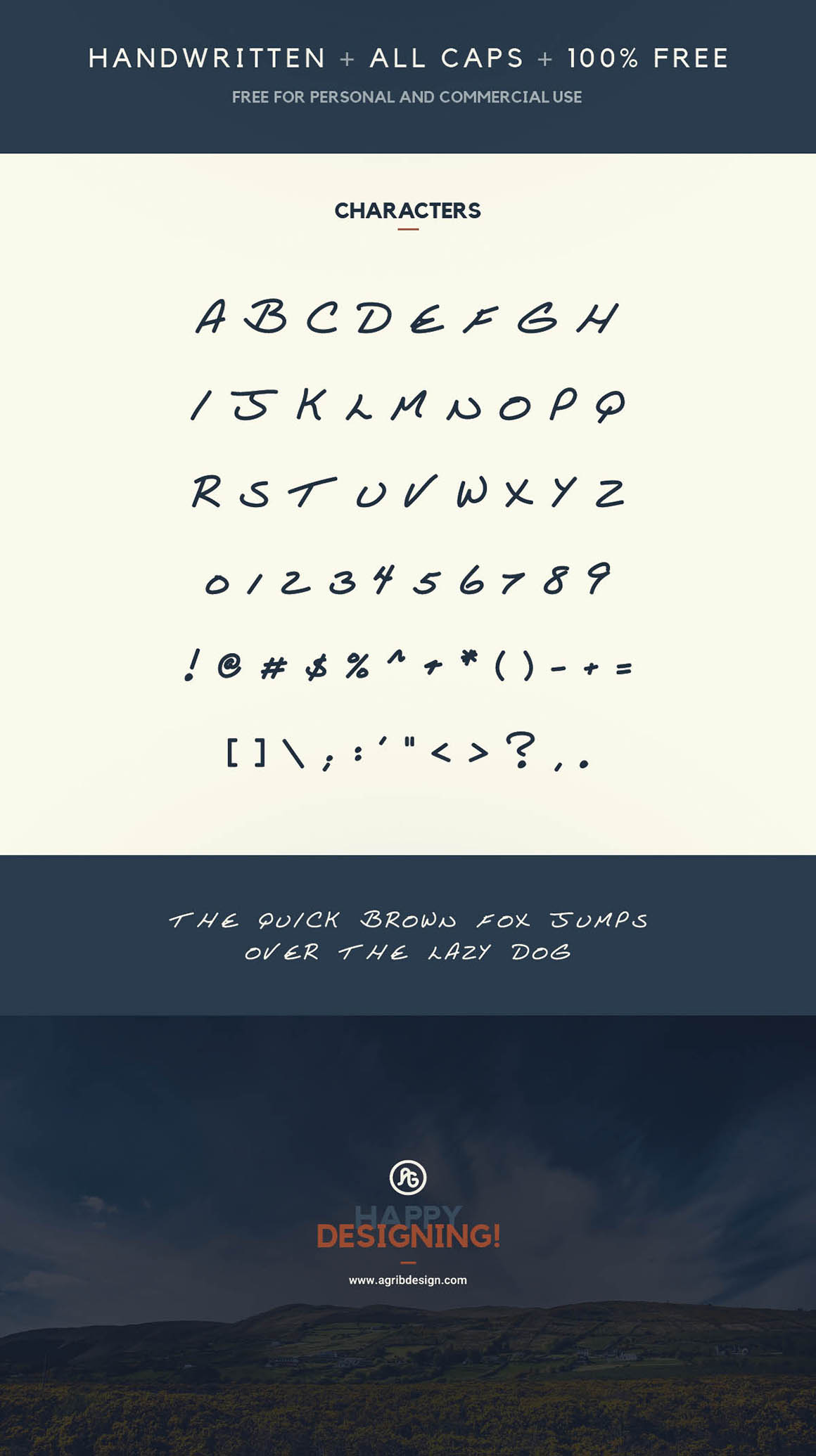
Tommy Lee – Free Font
This is my first attempt at creating a font. The font was created off of my father’s handwriting, which I always found unique. This is free to download and can be used in personal and commercial projects 🙂